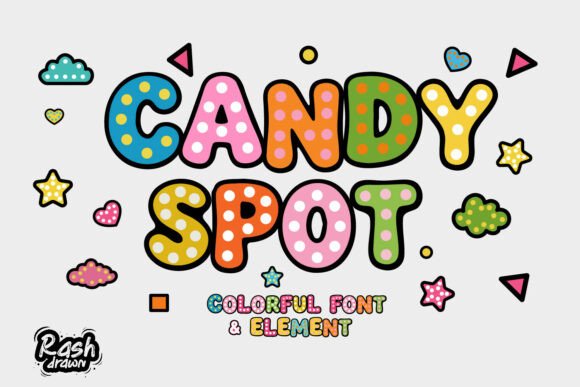
Adding Playful Energy with Candy Spot Typography
If you are searching for a typeface that instantly communicates fun, nostalgia, and vibrant energy, look no further than Candy Spot. This distinctive display font draws inspiration from the sugary sweetness of classic confectionery and the bold aesthetics of pop-art, making it a standout choice for projects that need to grab attention immediately. It is not merely a set of characters; it is a visual statement designed to inject personality into your creative work.
The Visual Appeal of Polka Dots and Pop-Art
What sets Candy Spot apart from standard sans serif or serif font options is its unique internal detailing. Every character features playful polka dot elements that mimic the texture of sprinkles or the bubbly surface of carbonated soda. This design choice creates a sense of movement and texture that flat typography often lacks. The bold, rounded edges ensure the font remains approachable and friendly, avoiding the harshness sometimes found in modern geometric typefaces. When used in large headlines, the intricate details become clearly visible, creating a rich visual experience.
Best Applications for a Bubbly Typeface
Choosing the right font is about matching the tool to the task. Candy Spot excels in environments where joy and youthfulness are the primary goals. Because of its distinct style, it is particularly effective for specific design categories.
- Kids' Branding and Apparel: It is ideal for toy shop logos, children’s clothing graphics, and vibrant nursery decor. The font captures a childlike wonder that resonates with younger audiences.
- Party and Event Stationery: For birthday invitations, festive banners, and candy-themed event signage, this font sets the tone before the guest even arrives.
- Packaging Design: If you are working on food packaging, particularly for sweets, snacks, or colorful beverages, Candy Spot enhances the product's shelf appeal.
- Digital Content: It works wonderfully for social media graphics, YouTube thumbnails, and gaming channels that aim for a high-energy, colorful aesthetic.
Integrating Candy Spot into Your Design Workflow
To use Candy Spot effectively, consider it a centerpiece rather than a background element. As a display font, it is crafted for headlines, logos, and short bursts of text rather than long-form paragraphs. Its legibility shines when used at larger sizes where the polka dot details can be appreciated without becoming noisy.
When pairing this typeface with other design assets, look for balance. A clean, minimalist sans serif font works best for body text, allowing Candy Spot to handle the visual heavy lifting for headers. This contrast ensures your layout remains professional and easy to read while maintaining a playful hierarchy. Think of it as the "cherry on top" of your design system.
Design Flexibility and Professional Polish
While the font has a distinct personality, it offers surprising versatility in color application. Because the polka dots are integrated into the font file, they can often be manipulated to accept different colors depending on your software capabilities, or they simply provide a delightful texture against solid backgrounds. Using this typeface helps standardize the "fun" aspect of a brand identity, ensuring that every touchpoint—from a website banner to a printed poster—feels cohesive.
For designers working on client projects, presenting a unique option like Candy Spot can elevate your pitch. It demonstrates a willingness to explore creative typography beyond the standard library, offering clients a premium font solution that helps them stand out in a crowded market.
Making the Right Typography Choice
Ultimately, typography is one of the most powerful tools for shaping perception. A well-chosen typeface tells a story before a single word is read. By incorporating Candy Spot into your toolkit, you are equipping yourself with a design asset that brings instant positivity and visual impact, helping your projects communicate with clarity and charm. Happy creating with Candy Spot!